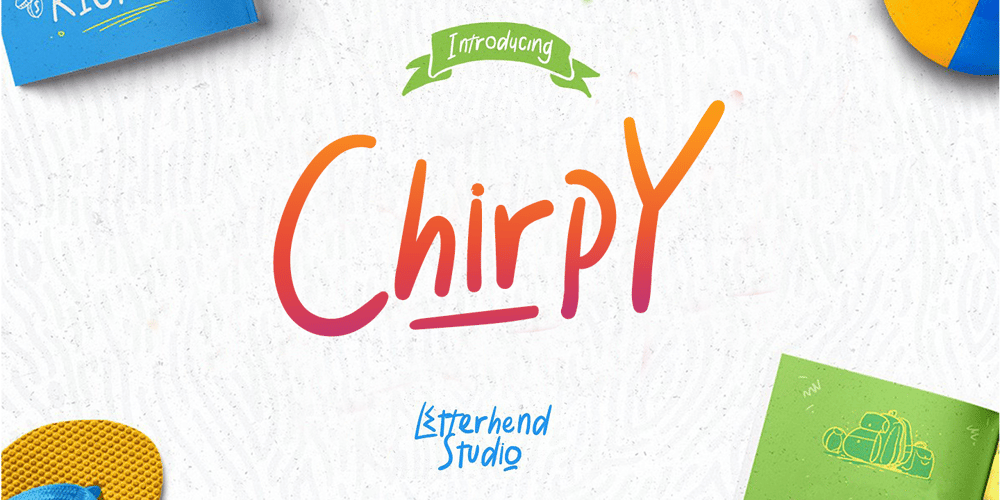
Chirpy Font Family was designed by Hendry Juanda and published by Letterhend. Chirpy contains 3 styles and family package options. Chirpy is a playful yet casual typeface which is suitable to use in fun and playful design. This font is comes in uppercase, lowercase, punctuations, symbols & numerals, stylistic set alternate, ligatures, etc.We hope you enjoy the font, please feel free to comment if you have any thoughts or feedback. Or simply send me a PM or email me at letterhend@gmail.com. Thanks for purchasing and have fun!